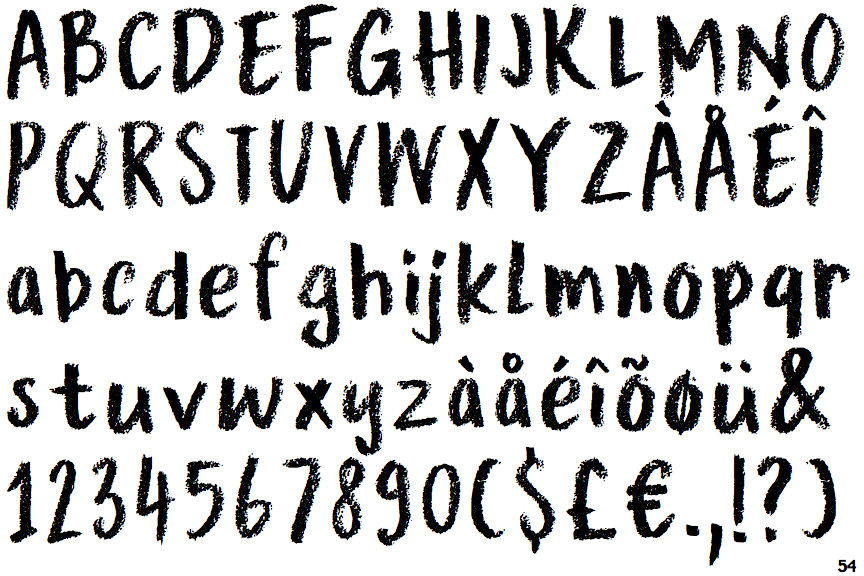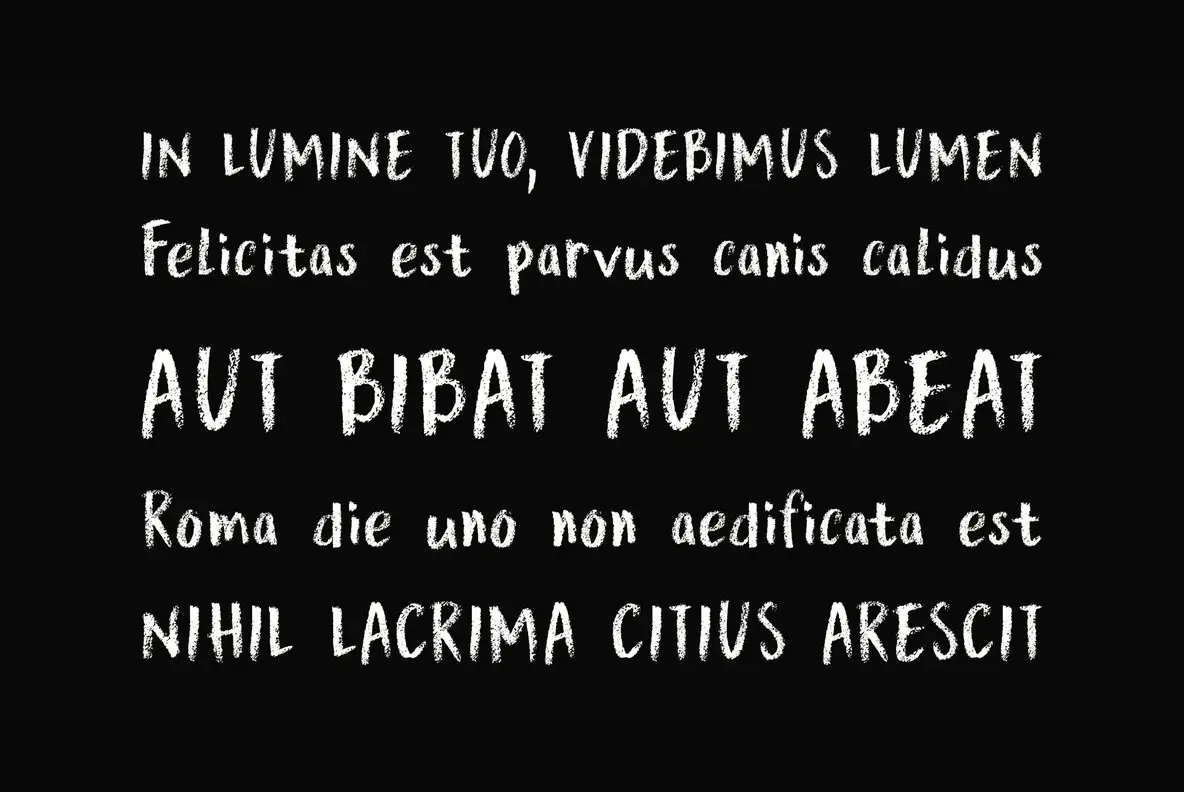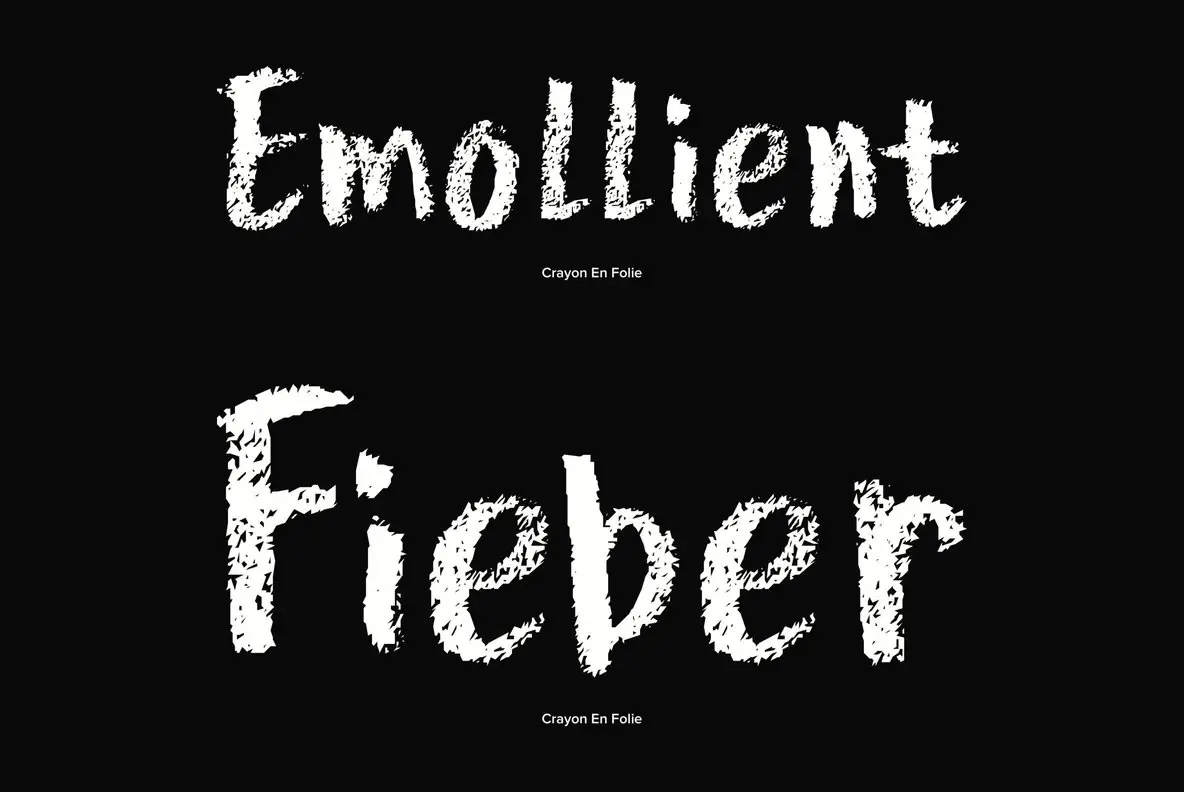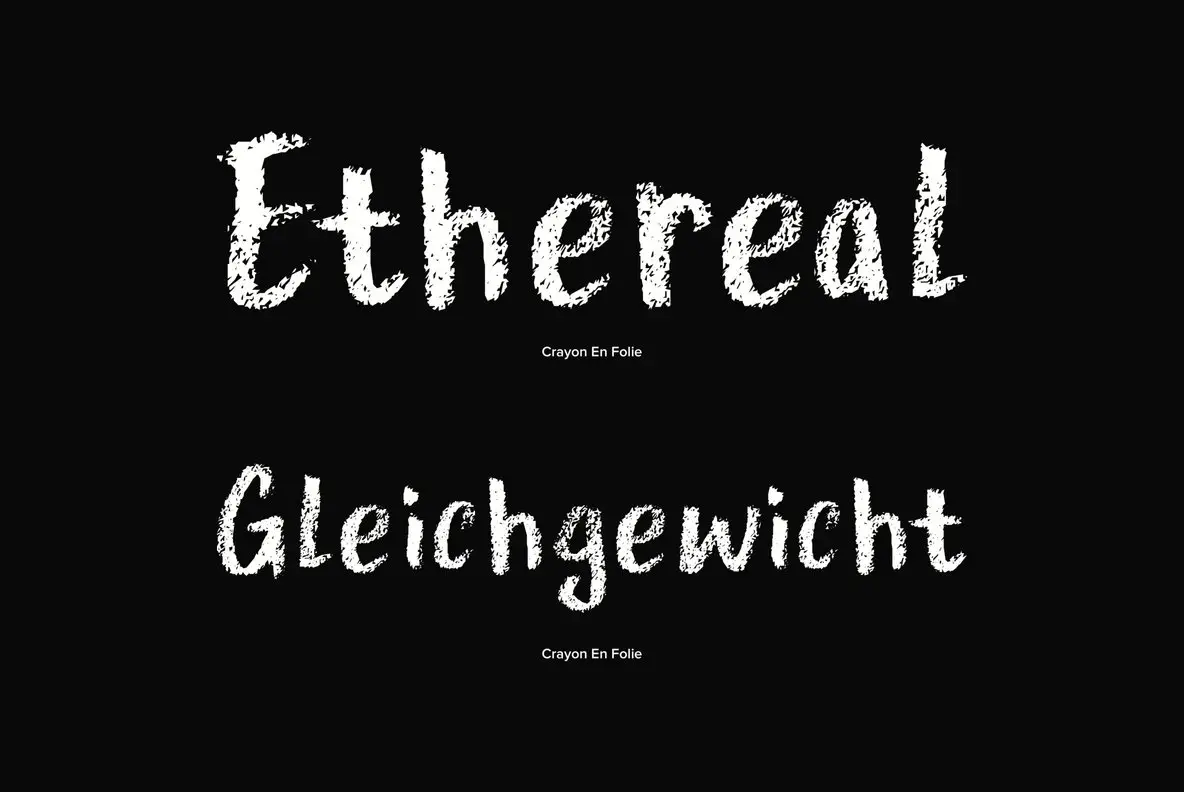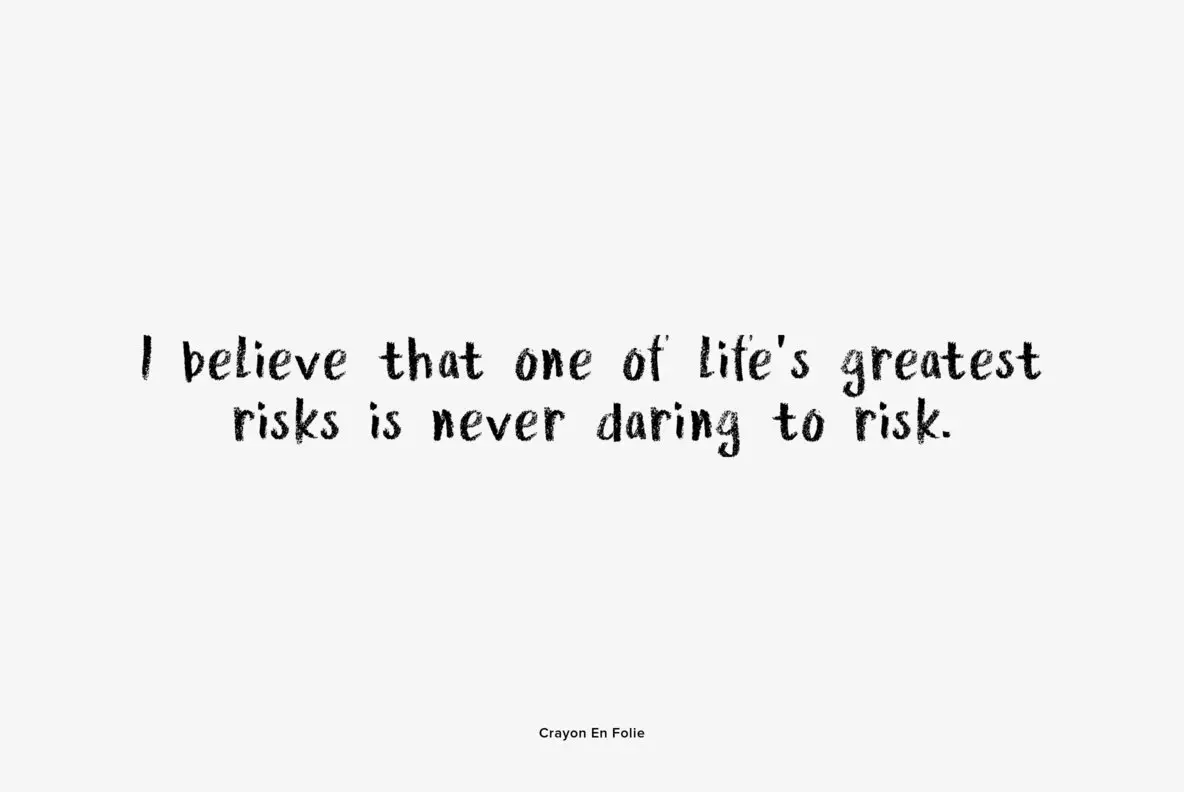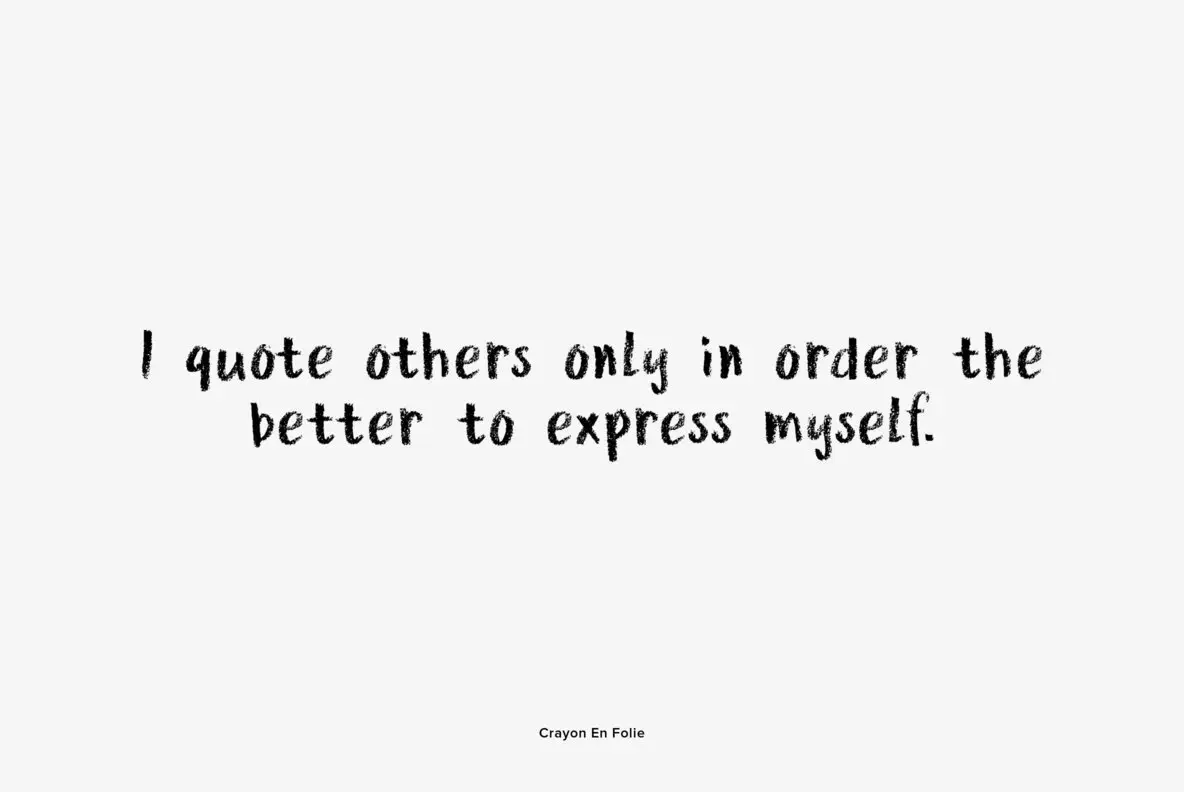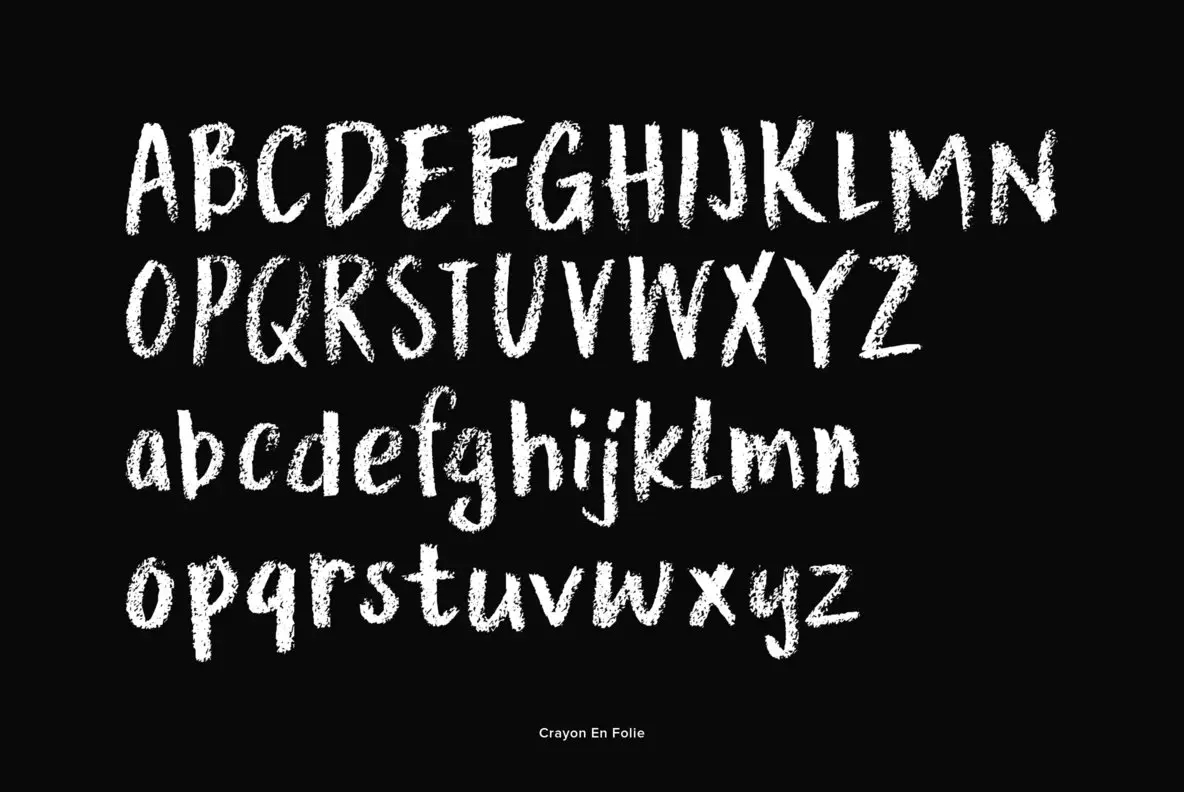
Crayon En Folie Font . Crayon en folie ('pencil madness' in french) is a straightforward pencil font, created with an extra thick black pencil. Thousands of designers (famous or not) use the image font detection system to find a font or similar free fonts from an image. Crayon en folie est un crayon simple police, créé avec un crayon noir très épais. Crayon en folie regular font. Votes, rated based on results identification. Use it for books, posters and packaging. Comes with a coloring box full of diacritics. Crayon en folie (‘pencil madness’ in french) is a straightforward. The letters have an uneven, organic feel,. Crayon en folie (‘pencil madness’ in french) is a straightforward pencil font, created with an extra thick black pencil.
Votes, rated based on results identification. Crayon en folie ('pencil madness' in french) is a straightforward pencil font, created with an extra thick black pencil. Crayon en folie (‘pencil madness’ in french) is a straightforward. Use it for books, posters and packaging. Comes with a coloring box full of diacritics. Crayon en folie est un crayon simple police, créé avec un crayon noir très épais. The letters have an uneven, organic feel,. Crayon en folie regular font. Crayon en folie (‘pencil madness’ in french) is a straightforward pencil font, created with an extra thick black pencil. Thousands of designers (famous or not) use the image font detection system to find a font or similar free fonts from an image.
Crayon En Folie Font Crayon en folie (‘pencil madness’ in french) is a straightforward pencil font, created with an extra thick black pencil. Crayon en folie regular font. Use it for books, posters and packaging. Votes, rated based on results identification. Crayon en folie ('pencil madness' in french) is a straightforward pencil font, created with an extra thick black pencil. Comes with a coloring box full of diacritics. Crayon en folie est un crayon simple police, créé avec un crayon noir très épais. Crayon en folie (‘pencil madness’ in french) is a straightforward pencil font, created with an extra thick black pencil. The letters have an uneven, organic feel,. Crayon en folie (‘pencil madness’ in french) is a straightforward. Thousands of designers (famous or not) use the image font detection system to find a font or similar free fonts from an image.
Identifont Crayon en Folie Crayon En Folie Font Crayon en folie est un crayon simple police, créé avec un crayon noir très épais. Comes with a coloring box full of diacritics. Crayon en folie regular font. Crayon en folie (‘pencil madness’ in french) is a straightforward pencil font, created with an extra thick black pencil. Crayon en folie (‘pencil madness’ in french) is a straightforward. Thousands of designers. Crayon En Folie Font.
Cray Crayon Font Lewis Creative Crayon En Folie Font Crayon en folie (‘pencil madness’ in french) is a straightforward. Crayon en folie est un crayon simple police, créé avec un crayon noir très épais. Crayon en folie regular font. Thousands of designers (famous or not) use the image font detection system to find a font or similar free fonts from an image. Crayon en folie ('pencil madness' in french). Crayon En Folie Font.
Crayon En Folie Font Free _VERIFIED_ Crayon En Folie Font Thousands of designers (famous or not) use the image font detection system to find a font or similar free fonts from an image. Crayon en folie (‘pencil madness’ in french) is a straightforward pencil font, created with an extra thick black pencil. Votes, rated based on results identification. Crayon en folie est un crayon simple police, créé avec un crayon. Crayon En Folie Font.
Crayon Font Crayon En Folie Font Crayon en folie (‘pencil madness’ in french) is a straightforward. Votes, rated based on results identification. Crayon en folie (‘pencil madness’ in french) is a straightforward pencil font, created with an extra thick black pencil. Crayon en folie ('pencil madness' in french) is a straightforward pencil font, created with an extra thick black pencil. Crayon en folie est un crayon. Crayon En Folie Font.
Crayon En Folie Font FontPath Crayon En Folie Font Thousands of designers (famous or not) use the image font detection system to find a font or similar free fonts from an image. Crayon en folie (‘pencil madness’ in french) is a straightforward. The letters have an uneven, organic feel,. Comes with a coloring box full of diacritics. Crayon en folie est un crayon simple police, créé avec un crayon. Crayon En Folie Font.
Crayon En Folie Font YouWorkForThem Crayon En Folie Font Comes with a coloring box full of diacritics. Crayon en folie est un crayon simple police, créé avec un crayon noir très épais. Use it for books, posters and packaging. Votes, rated based on results identification. The letters have an uneven, organic feel,. Crayon en folie (‘pencil madness’ in french) is a straightforward. Crayon en folie (‘pencil madness’ in french). Crayon En Folie Font.
Crayon En Folie Font YouWorkForThem Crayon En Folie Font Votes, rated based on results identification. Crayon en folie regular font. Comes with a coloring box full of diacritics. Crayon en folie est un crayon simple police, créé avec un crayon noir très épais. Crayon en folie (‘pencil madness’ in french) is a straightforward pencil font, created with an extra thick black pencil. Crayon en folie (‘pencil madness’ in french). Crayon En Folie Font.
Crayon Font by WADLEN · Creative Fabrica Crayon En Folie Font Crayon en folie (‘pencil madness’ in french) is a straightforward pencil font, created with an extra thick black pencil. Thousands of designers (famous or not) use the image font detection system to find a font or similar free fonts from an image. Crayon en folie regular font. Votes, rated based on results identification. Crayon en folie (‘pencil madness’ in french). Crayon En Folie Font.
Crayon En Folie Font Download YouTube Crayon En Folie Font Thousands of designers (famous or not) use the image font detection system to find a font or similar free fonts from an image. Use it for books, posters and packaging. Crayon en folie regular font. Crayon en folie (‘pencil madness’ in french) is a straightforward. Votes, rated based on results identification. Crayon en folie ('pencil madness' in french) is a. Crayon En Folie Font.